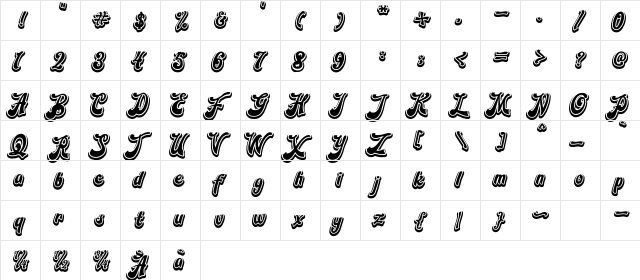
Blora Shadow Font Preview
Blora Shadow
Blora Shadow Font Details
| Style | Shadow |
| Foundry | Emanes Design. |
| Designer | Emanes Design. |
Design Context for Blora Typeface
Blora is built around its visual character rather than neutral utility — its distinctive forms are designed to make an impression at display sizes.
Font Pairing: Pair with a clean neutral sans-serif for body copy to let Blora's character lead without overwhelming the composition.
Pro Tip: Treat Blora as the centrepiece of your typographic hierarchy. One strong heading set in a decorative face can carry an entire layout.